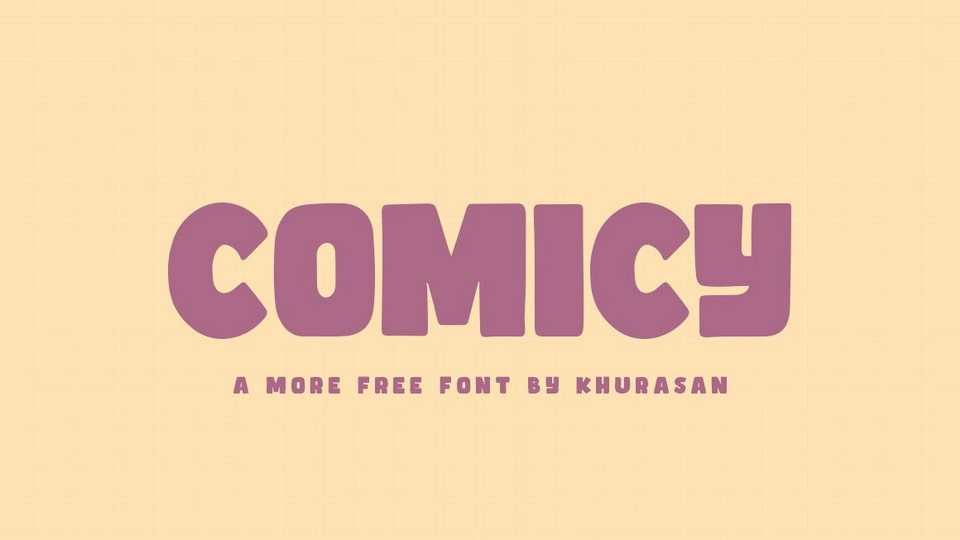
Download Comicy font, a bold yet fun and friendly display typeface. Comicy is perfect for posters, logos, magazines, book covers, banners, and many more.